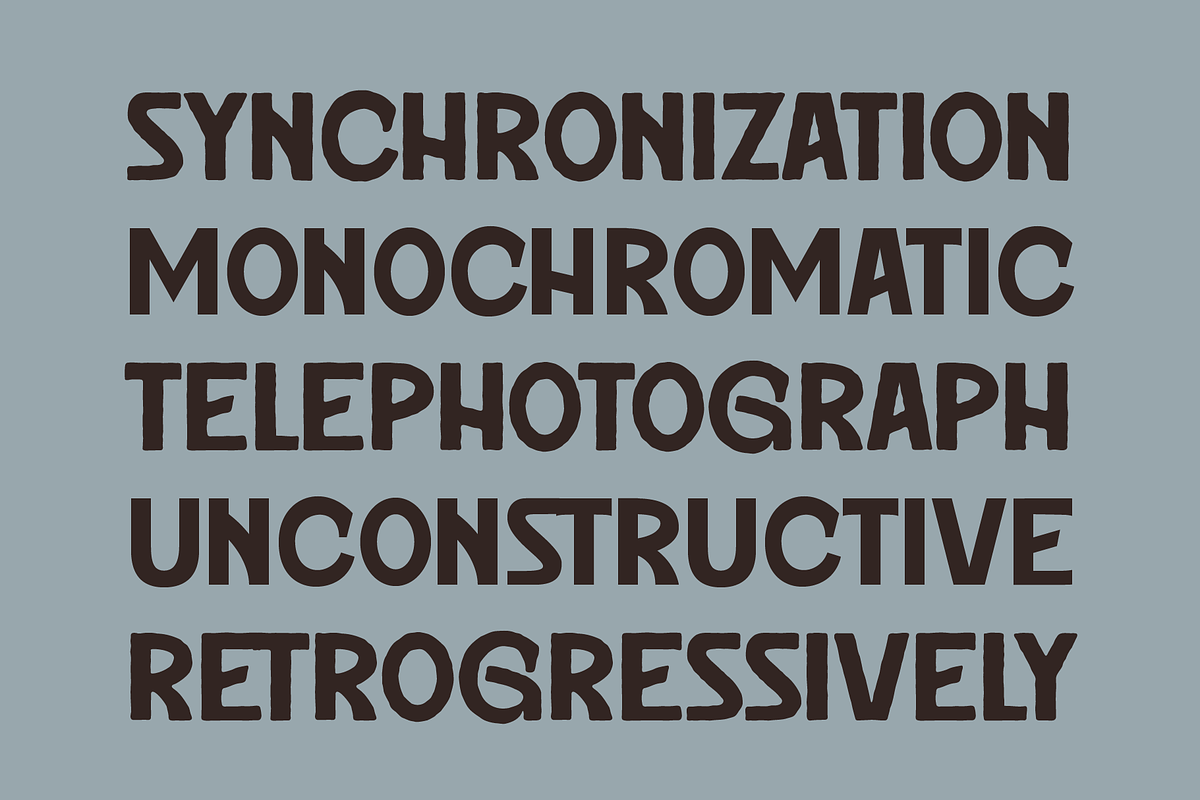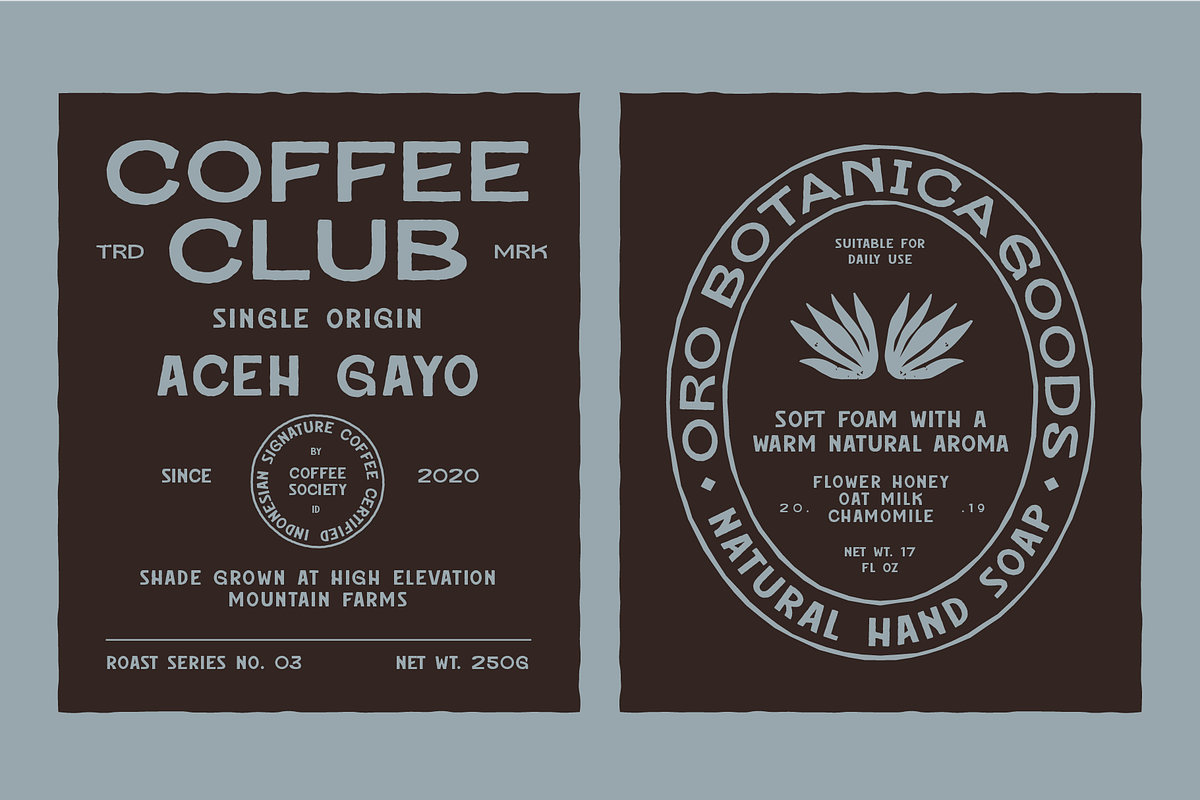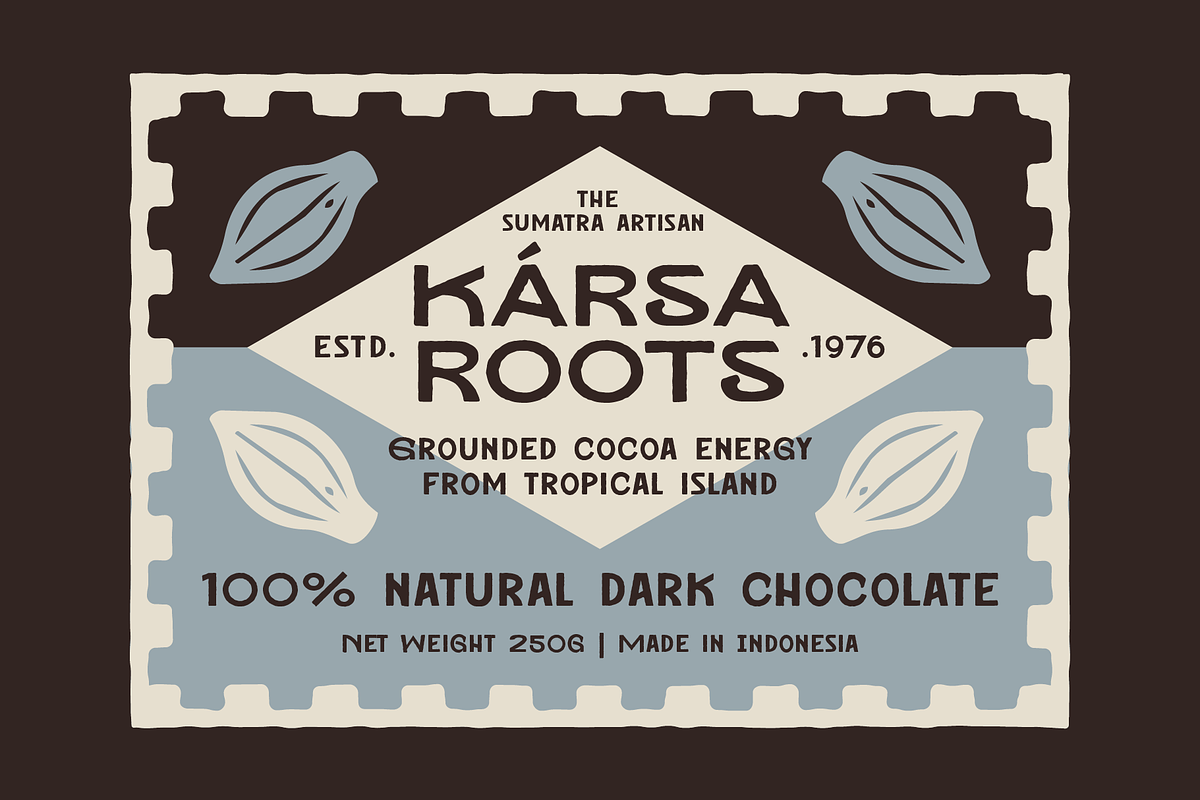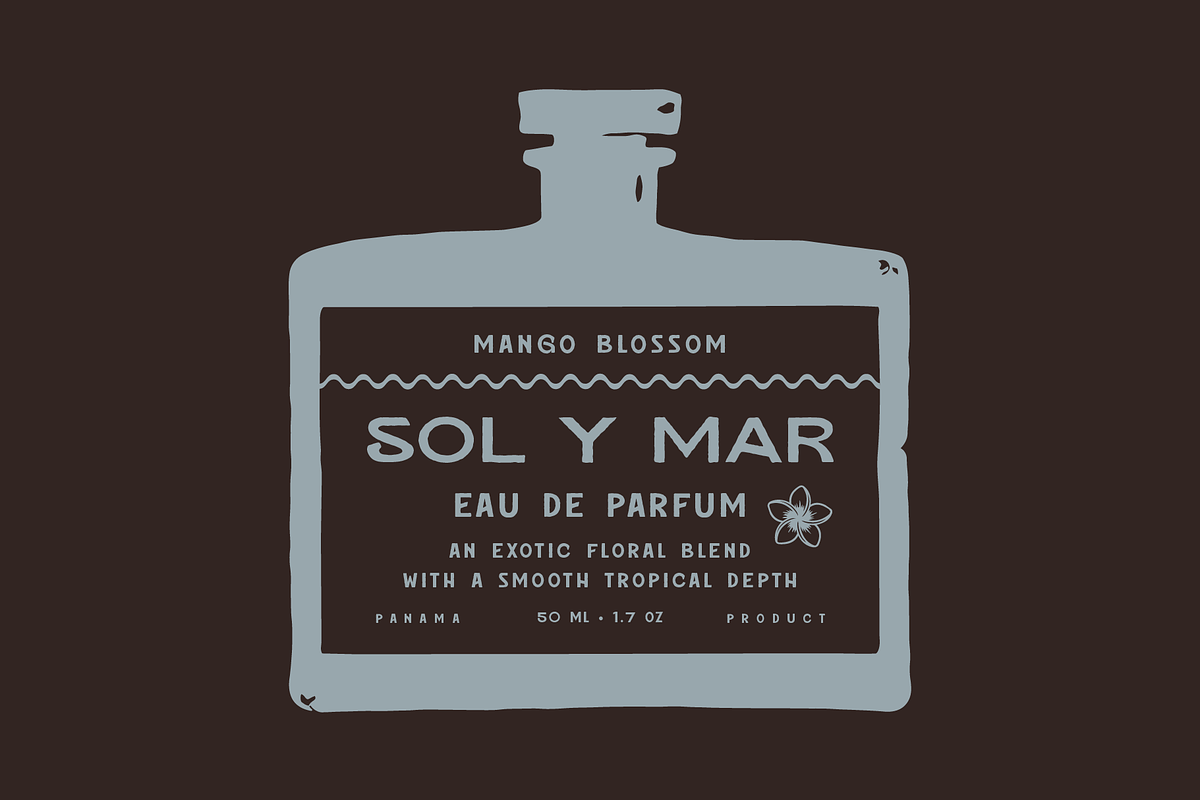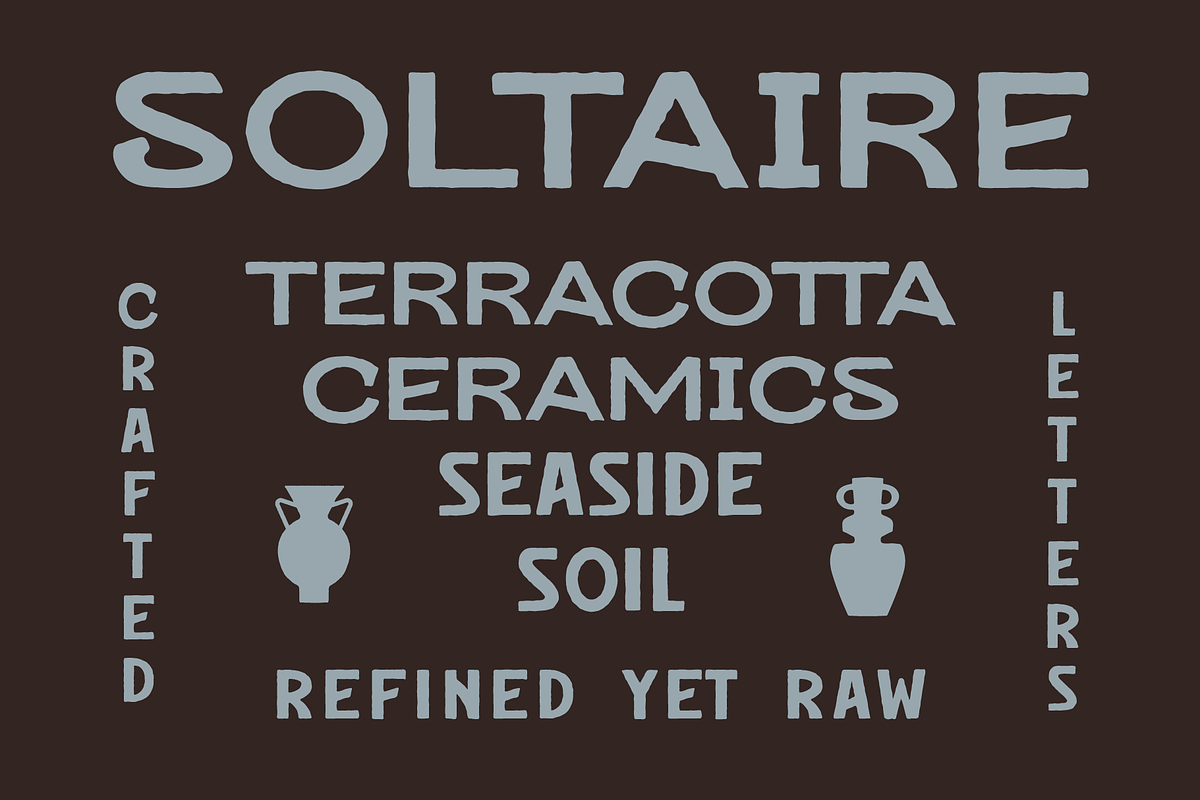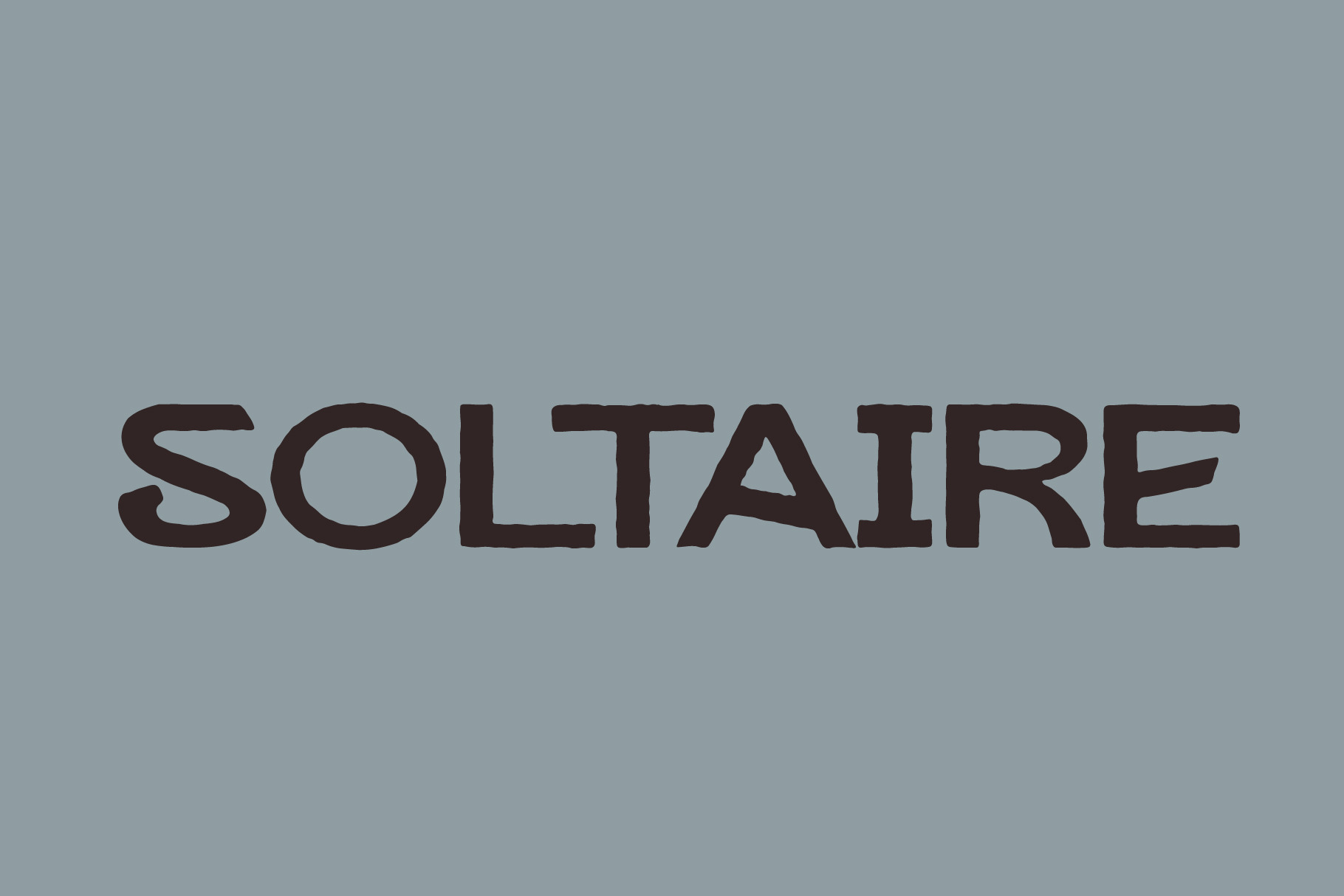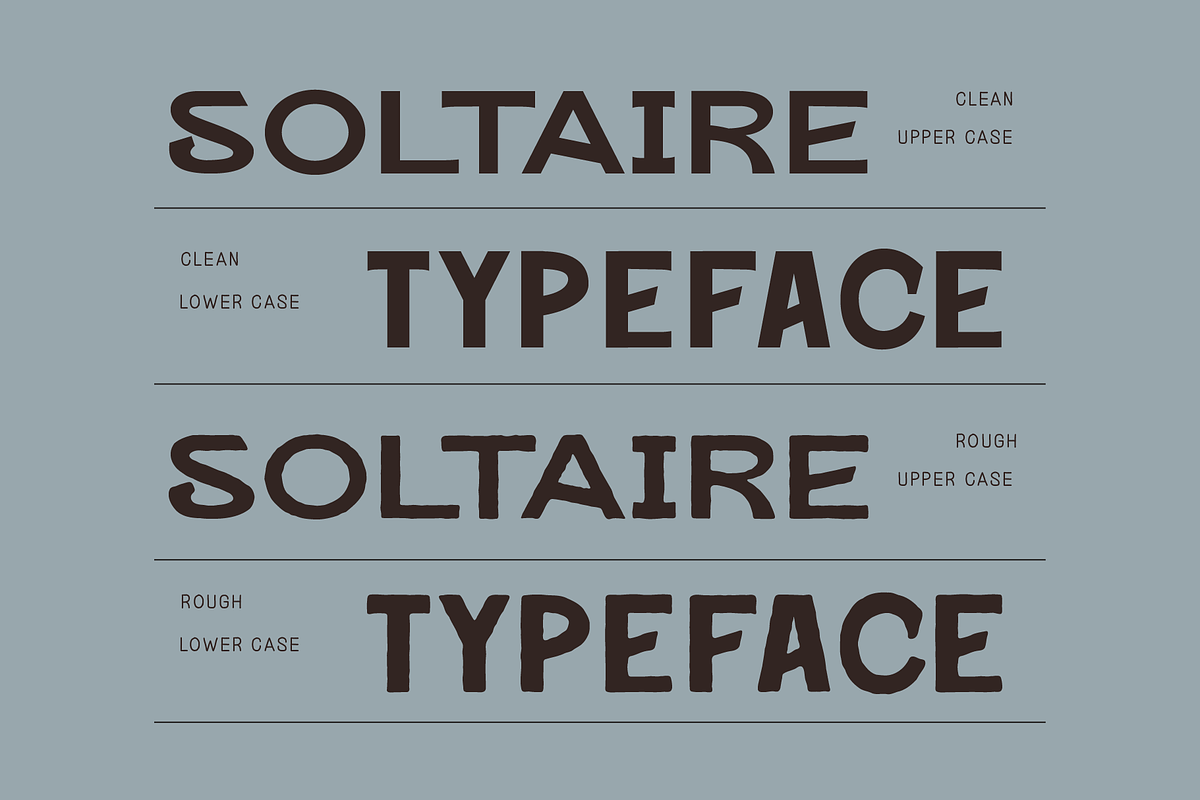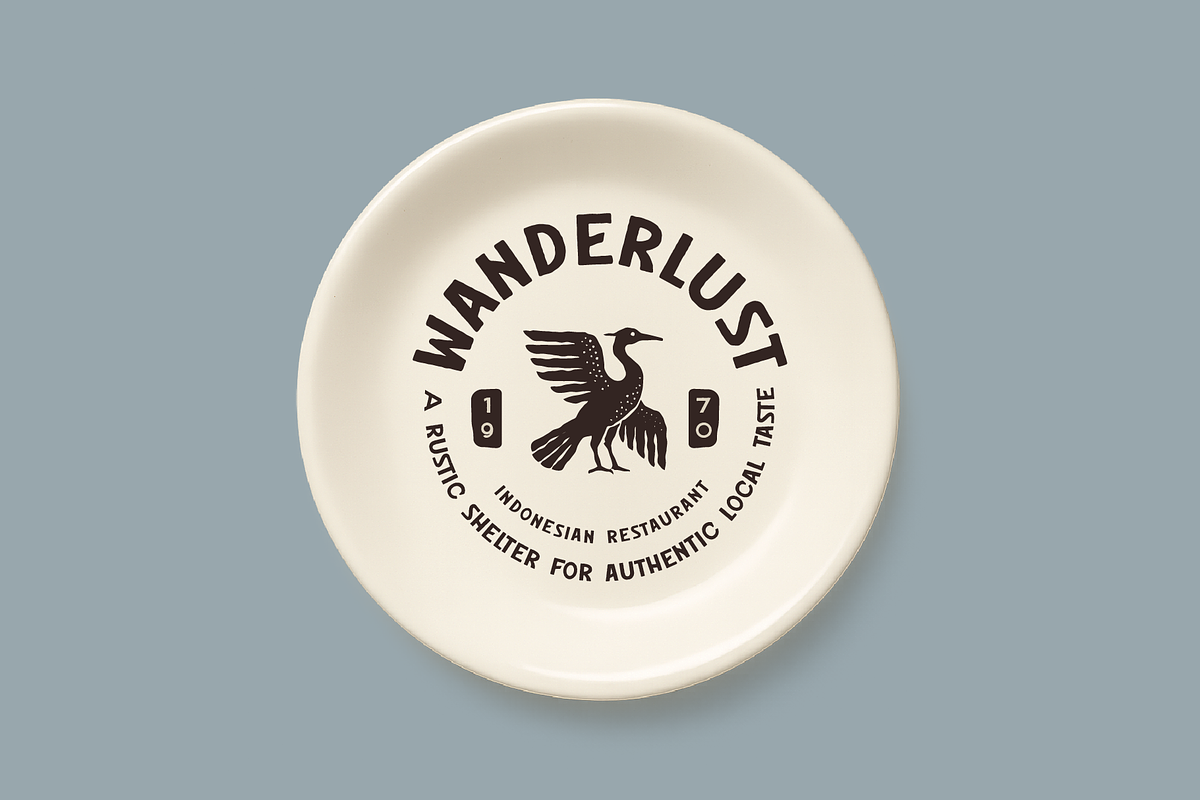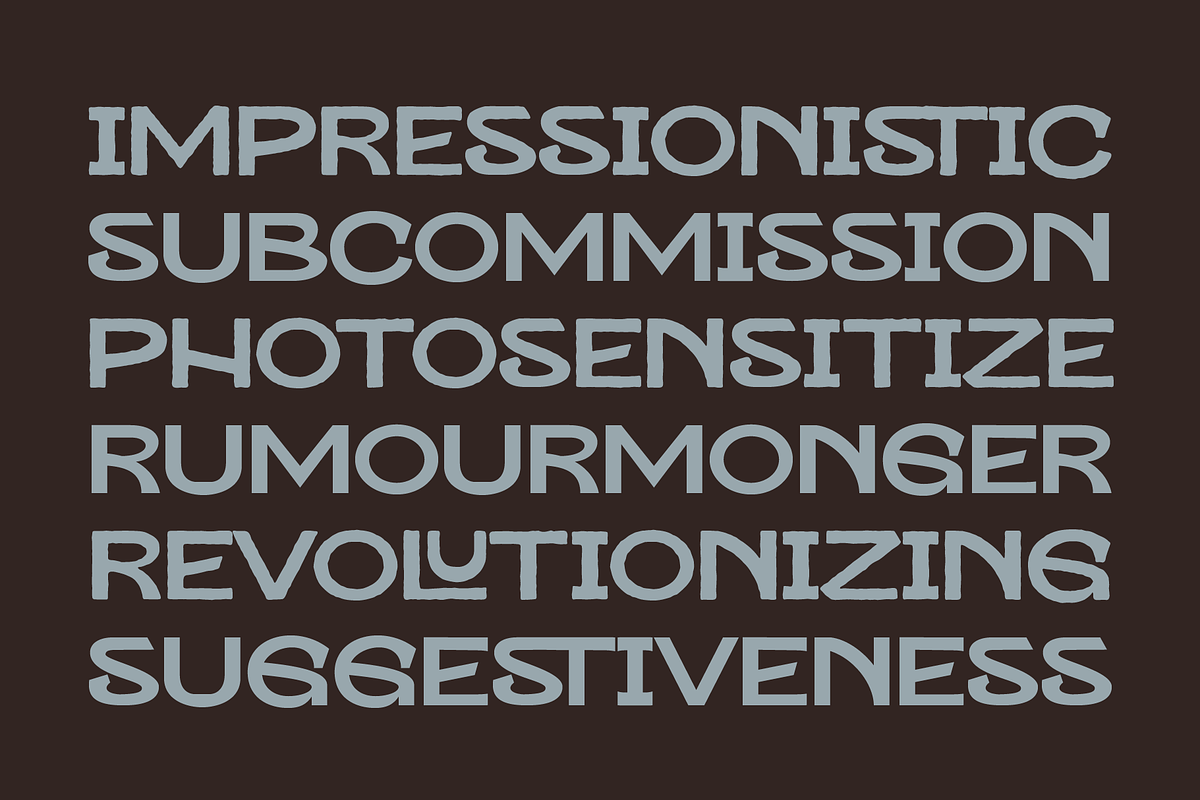
SAE SOLTAIRE - Artisan Tropical Font
Introducing SOLTAIRE, an artisan tropical display font crafted with a warm handcrafted personality and refined organic texture. Inspired by island resorts, ceramic studios, vintage hospitality signage, tropical cafés, handcrafted packaging, and soulful artisan branding.
SOLTAIRE combines primitive letterforms with modern boutique aesthetics, creating a display typeface that feels earthy, expressive, organic, and highly memorable.
Its handcrafted imperfections and soft rough edges create a natural human touch while maintaining strong readability for branding and packaging projects.
Ideal for designers creating tropical branding systems, organic product packaging, artisan cafés, ceramic labels, boutique resorts, spa identities, natural skincare, coffee packaging, perfume labels, handcrafted merchandise, restaurant branding, and editorial layouts.